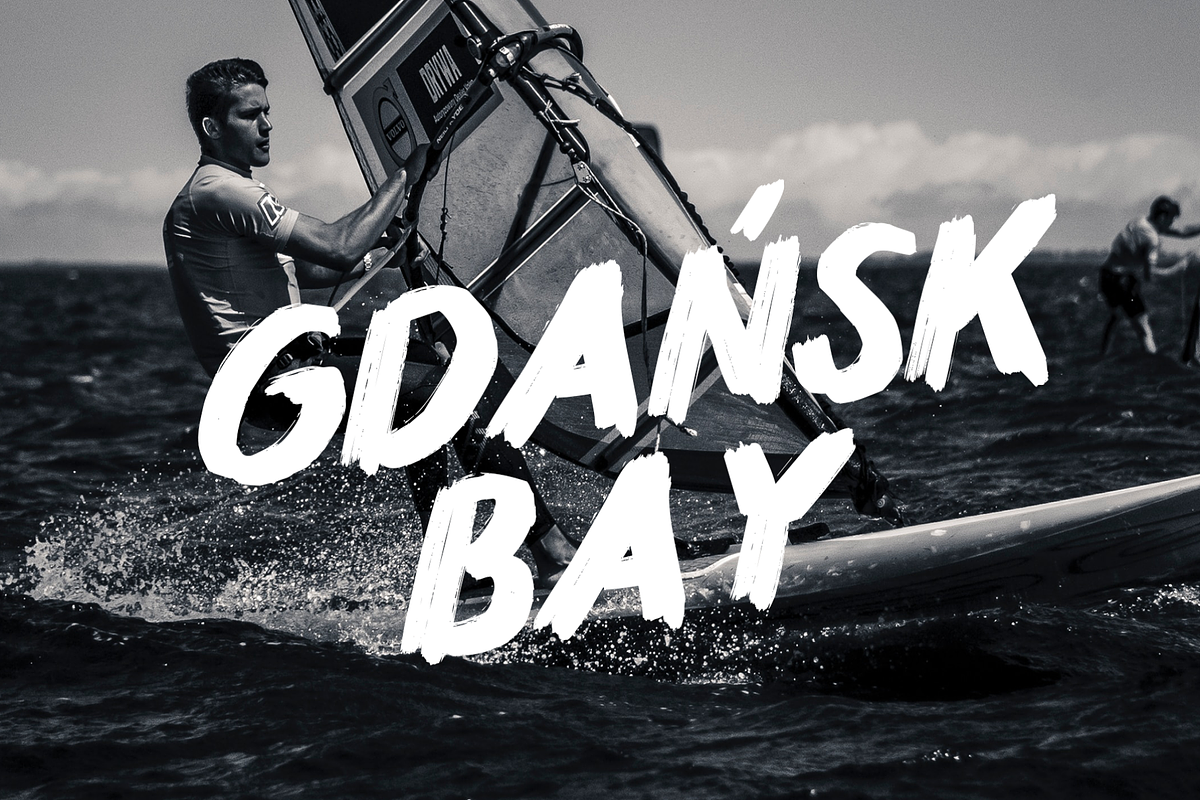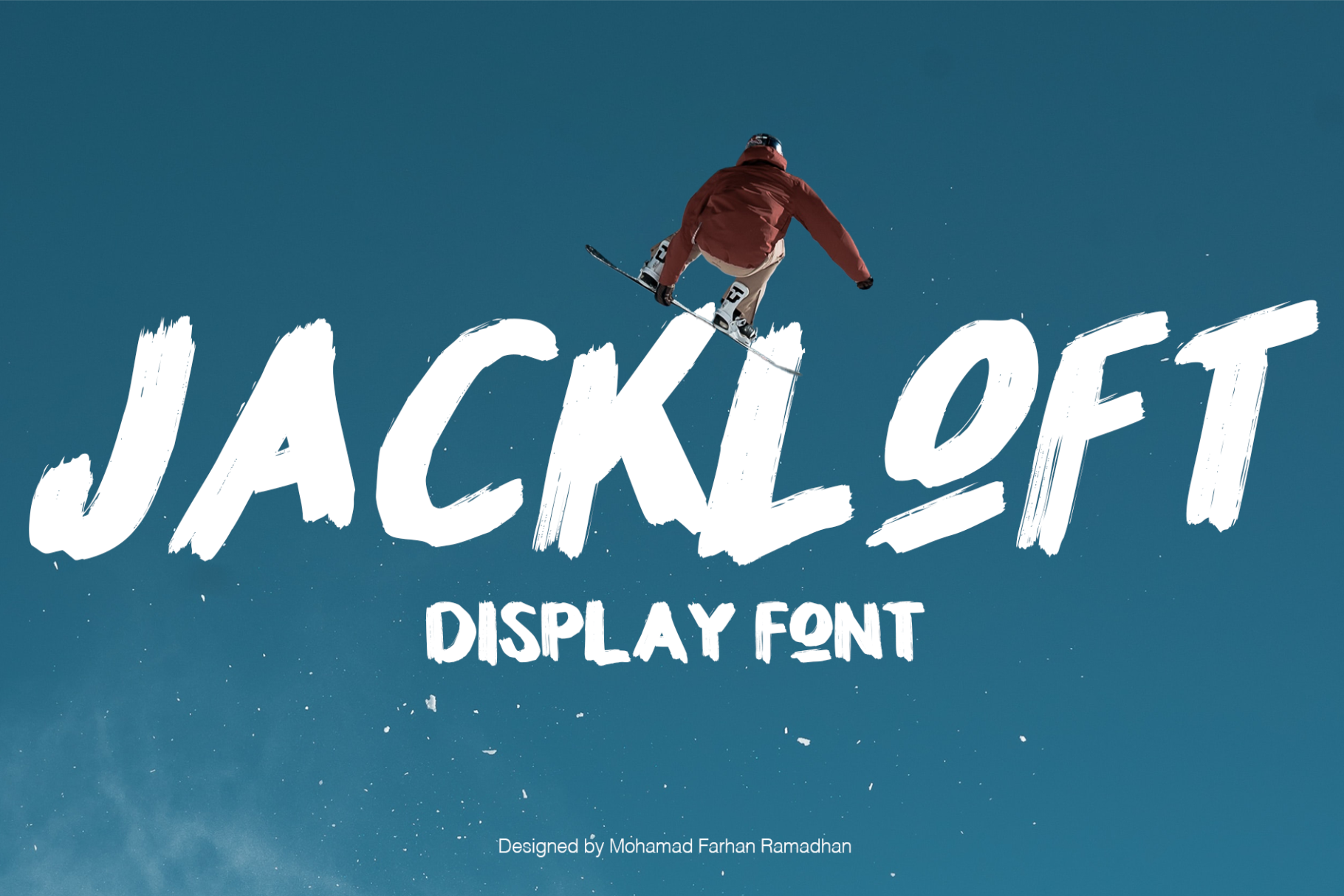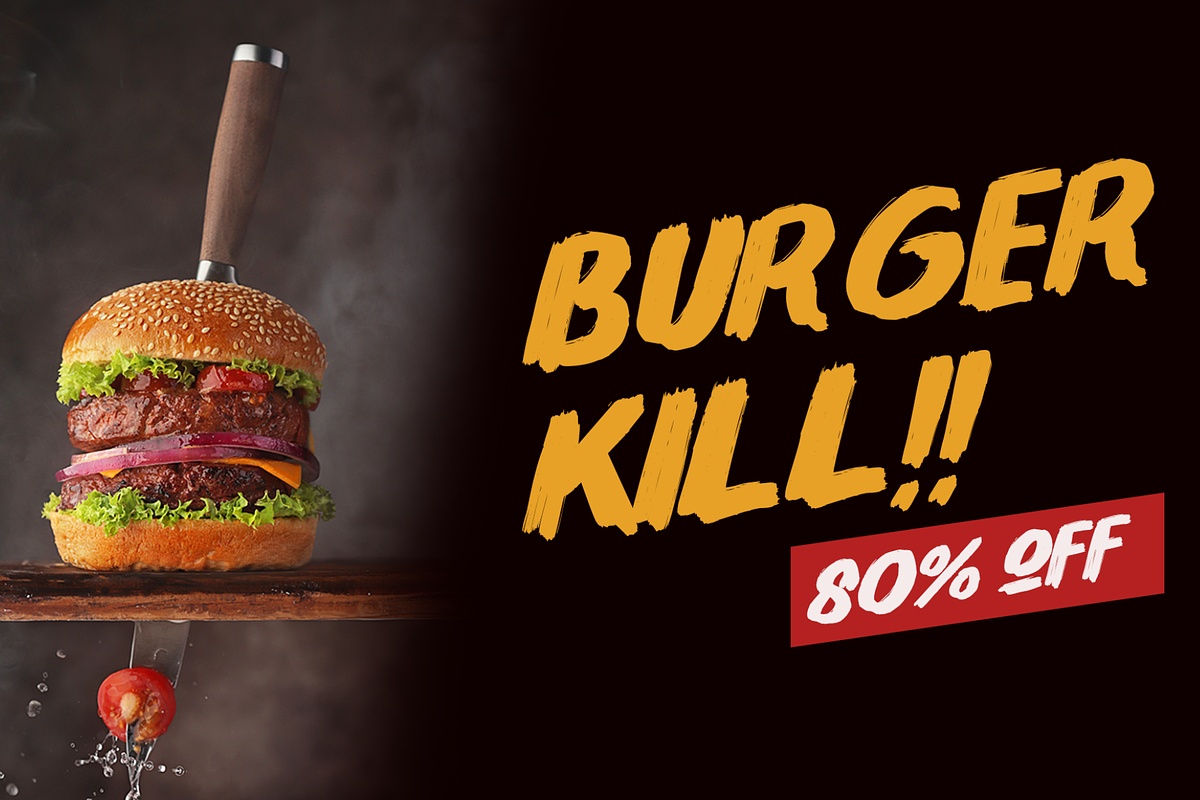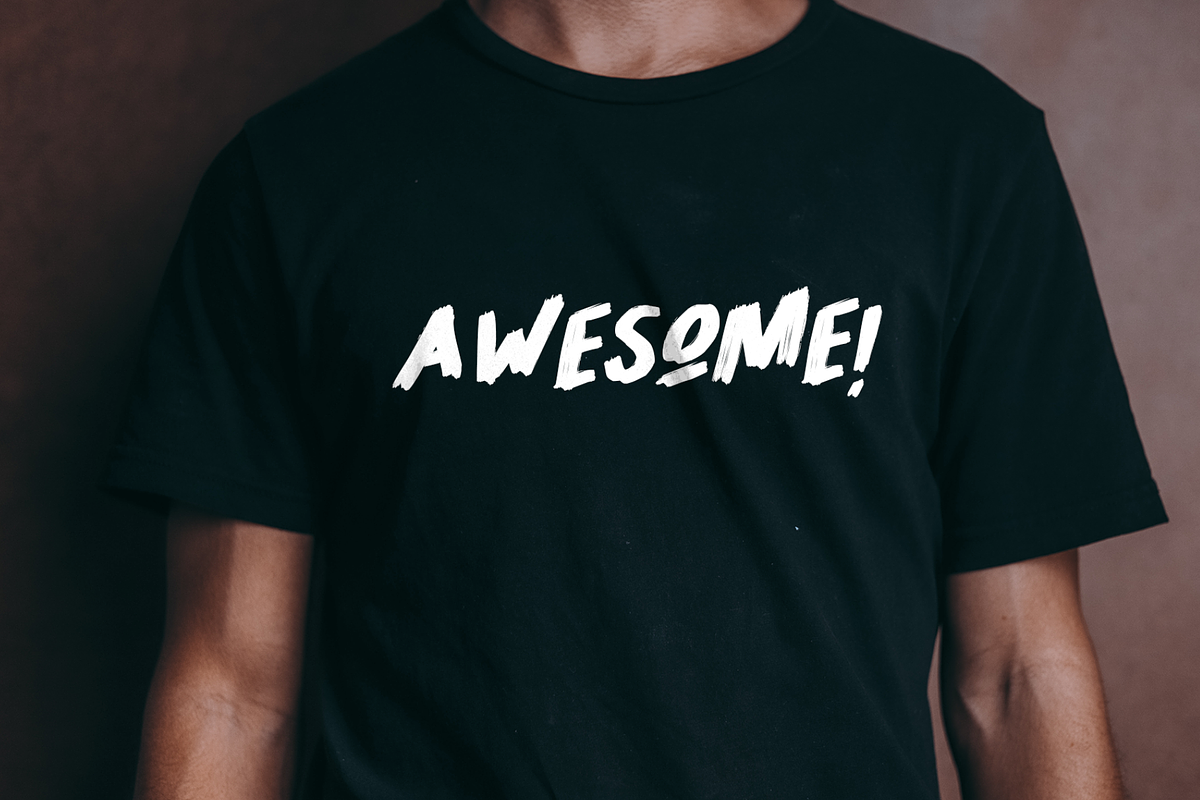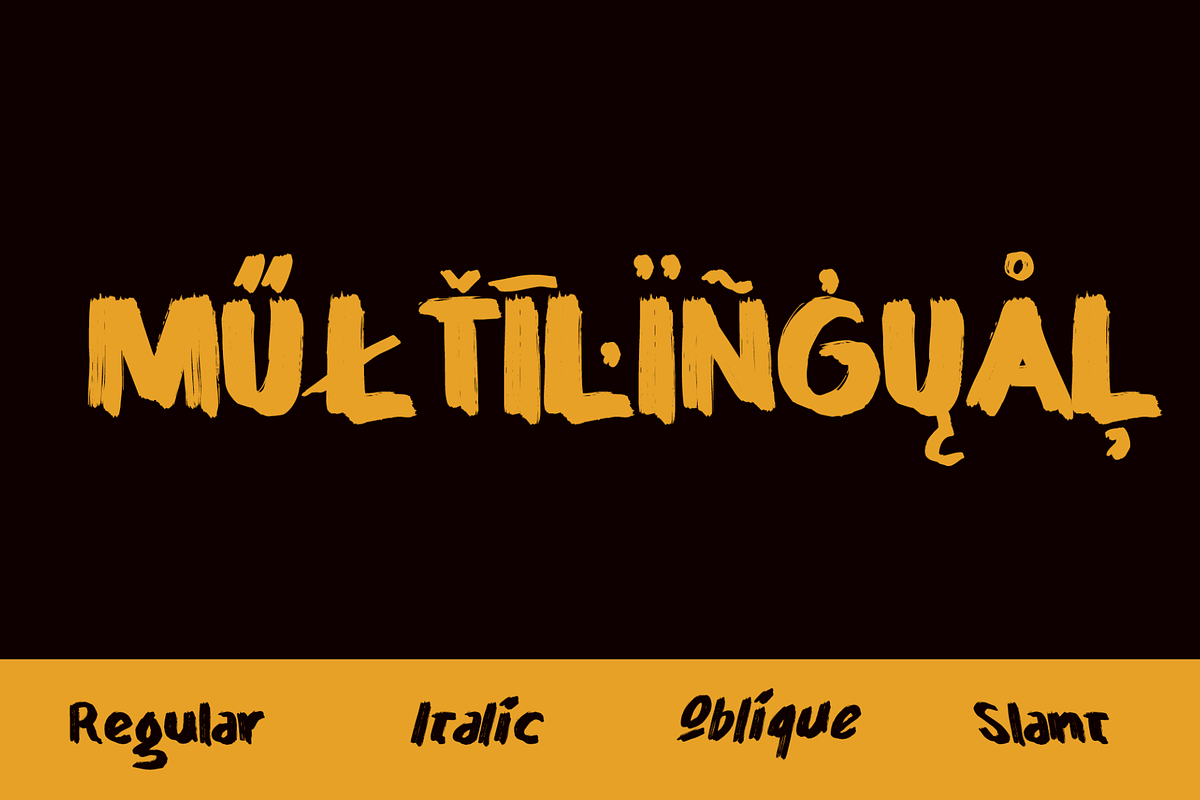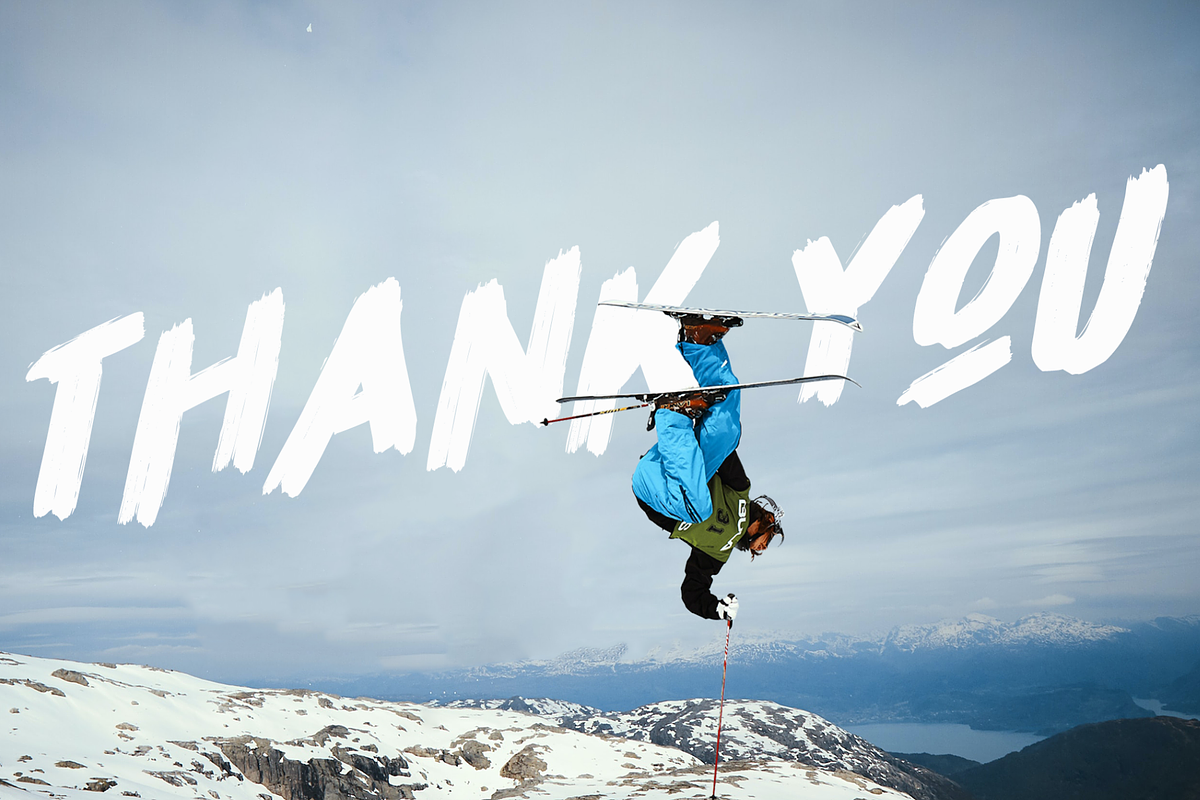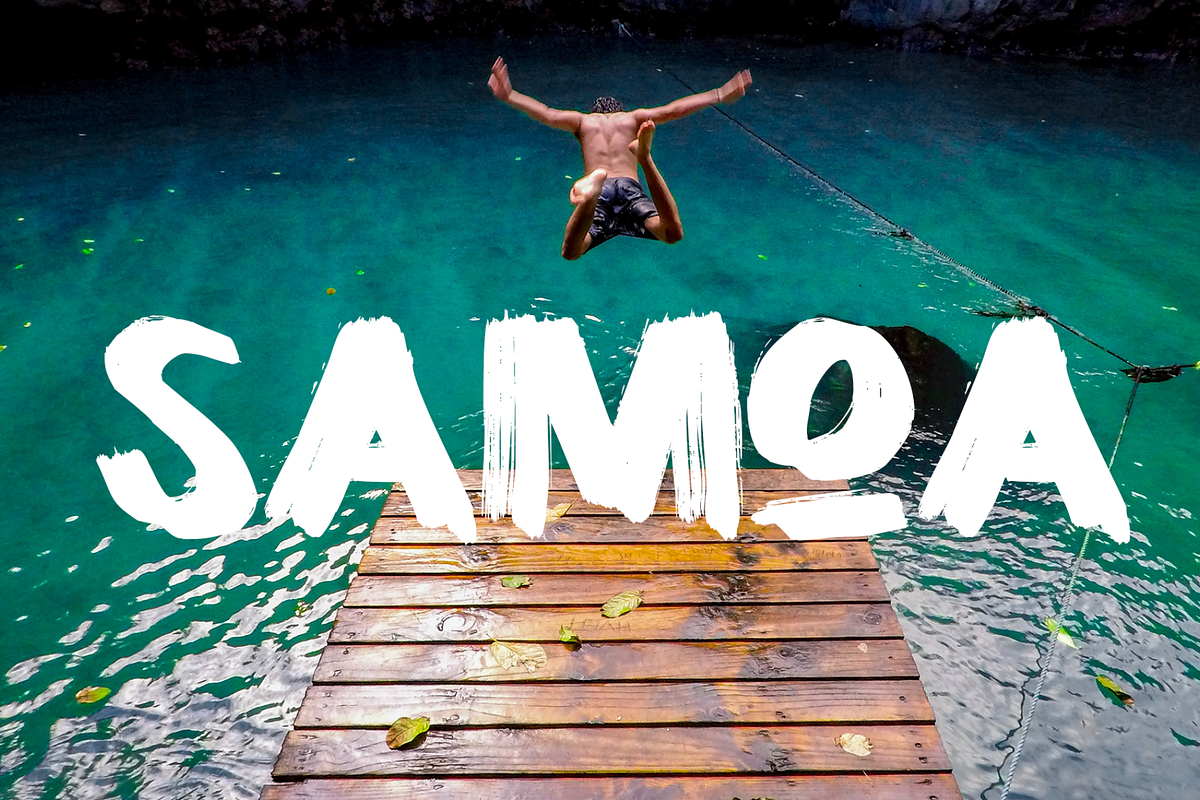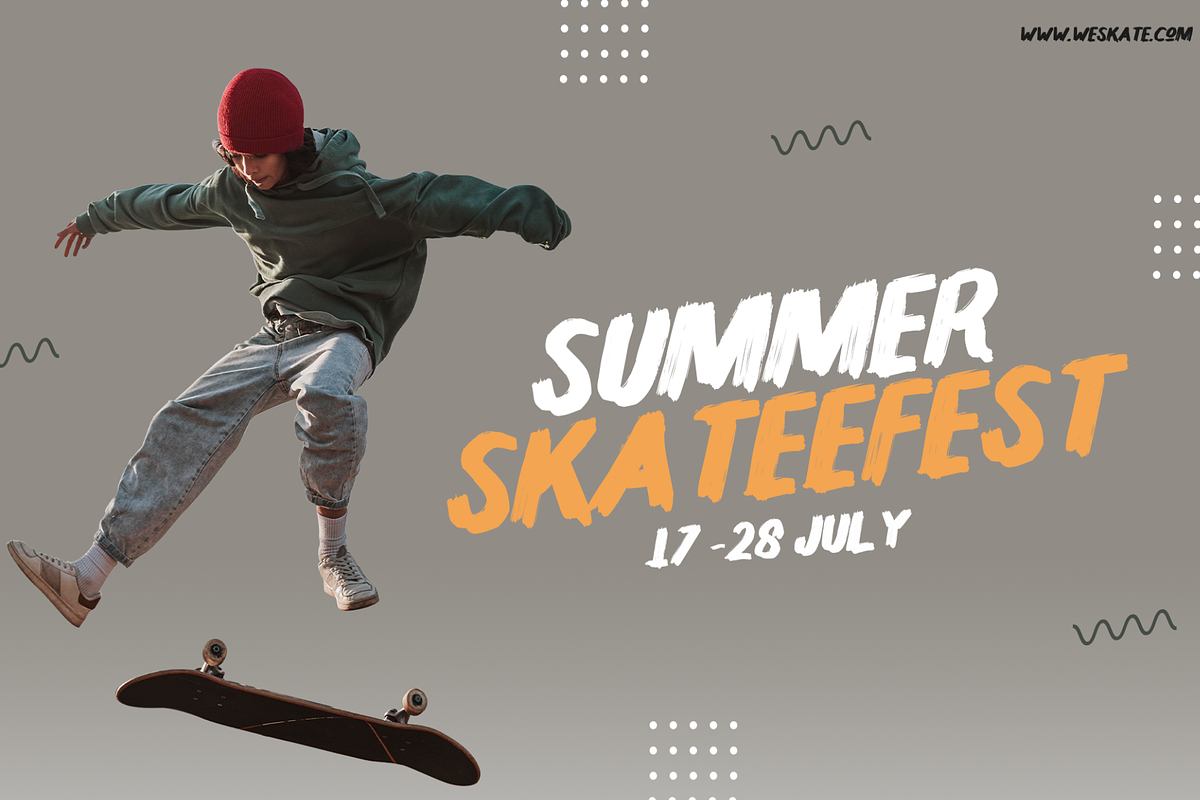
Jackloft | Bold Textured Font
ntroducing Jackloft, the display font that's both energetic and bold. Its brush-textured design adds a unique touch to any project, making it perfect for advertising, headlines, posters, thumbnails, and more. With its eye-catching appearance, Jackloft is sure to grab your audience's attention and make your message stand out. Don't settle for a bland font when you can add some excitement to your design with Jackloft. Try it now and take your project to the next level!